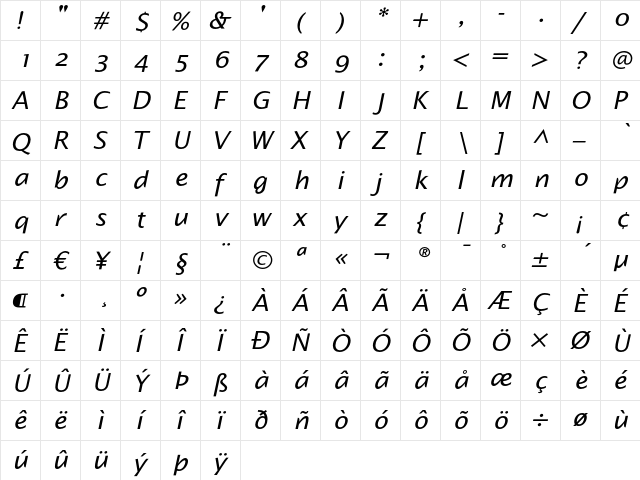
Alphabet2 Italic
Design Context for Alphabet2 Typeface
Alphabet2 is a composed and adaptable typeface that performs quietly and consistently across a wide range of design contexts. The slanted form adds forward momentum and visual energy.
Pro Tip: Try Alphabet2 for annotation and caption copy alongside an upright companion — the contrast in angle creates a dynamic but ordered typographic system.